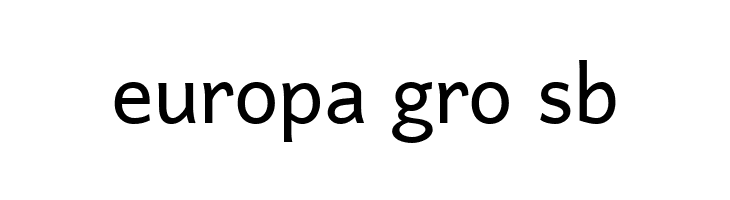
A clean, modern sans-serif font with excellent readability.
A modern, clean sans-serif font with balanced letterforms and consistent stroke widths.
A bold, modern sans-serif font with clean lines and uniform strokes.
A bold, modern sans-serif font with an italic style, perfect for impactful designs.
A bold, modern sans-serif font with clean lines and excellent readability.
A modern, bold, and italic sans-serif font with a clean and dynamic style.
A modern, condensed sans-serif font with excellent readability and space efficiency.
A bold, condensed sans-serif font with strong, uniform strokes and minimal contrast.
A bold, condensed, and italicized sans-serif font with a modern and dynamic style.
A modern, bold, and condensed sans-serif typeface with excellent readability.
A modern, bold, italic, and condensed sans-serif font with clean lines.
A modern, condensed sans-serif italic font with medium contrast and normal spacing.
A modern, light, and condensed sans-serif font with a clean and minimalistic design.
A sleek, modern, and condensed light italic font with tight character spacing.
A modern, italic sans-serif font with clean lines and a sleek appearance.
A modern, light, and clean sans-serif font with excellent readability.
A modern, light, italic sans-serif font with clean lines and a dynamic slant.